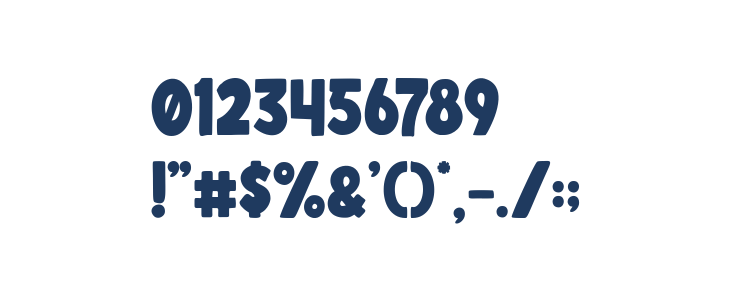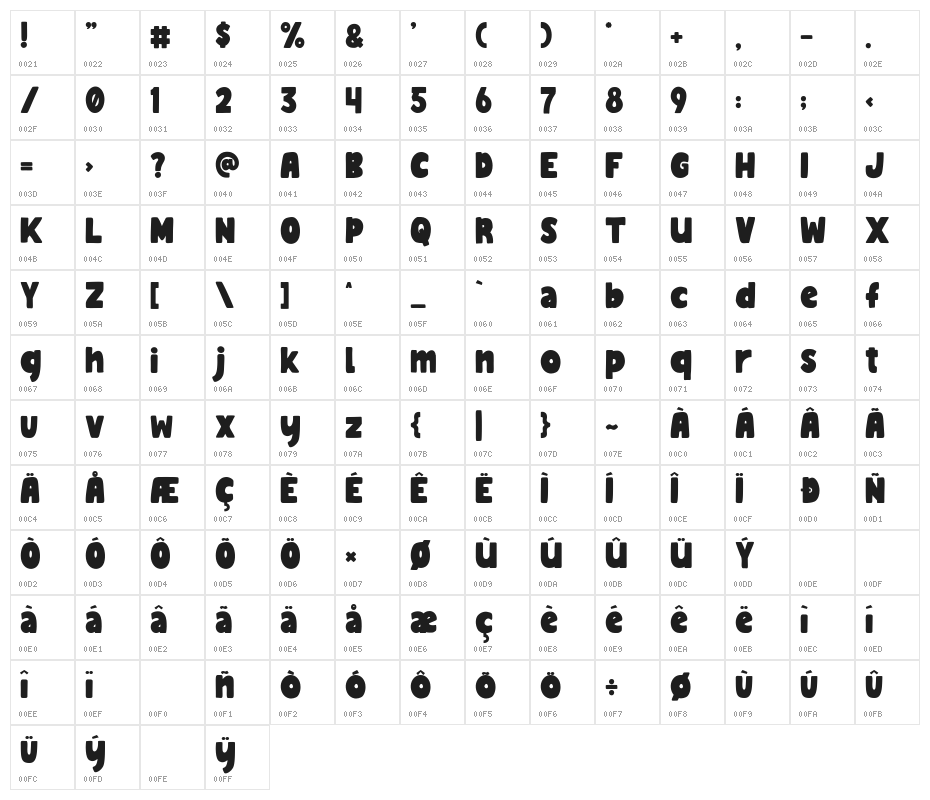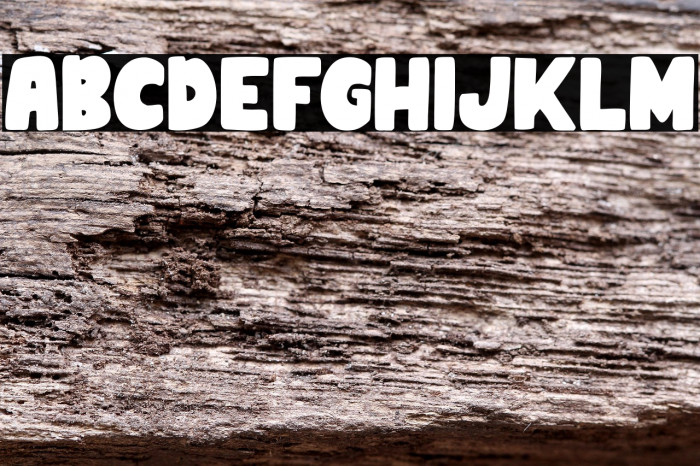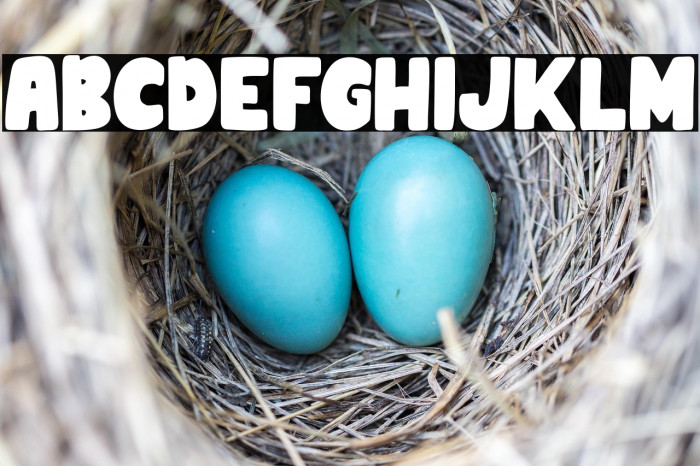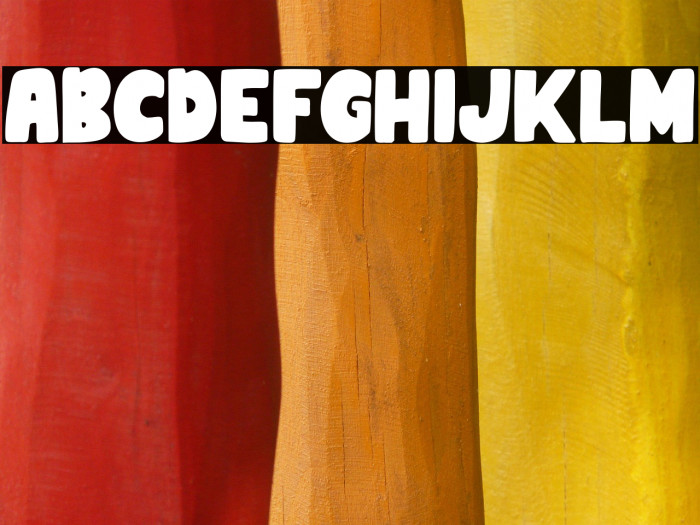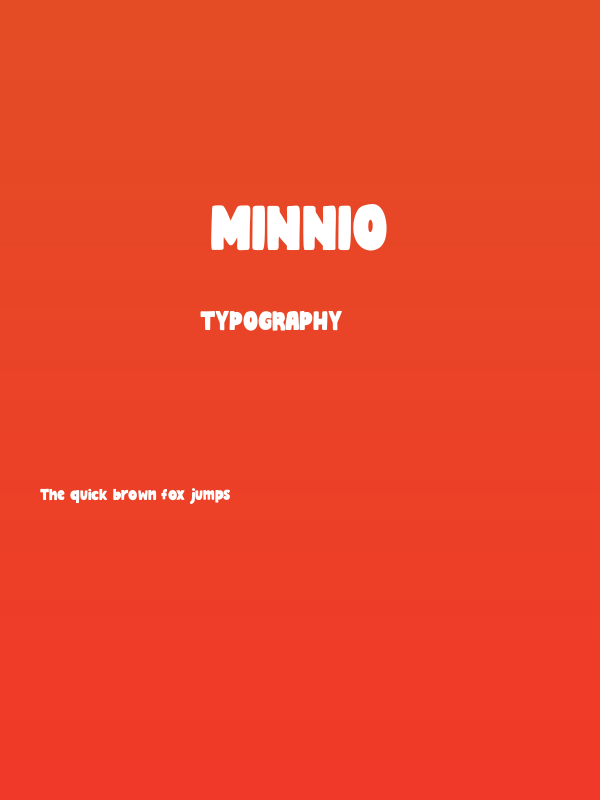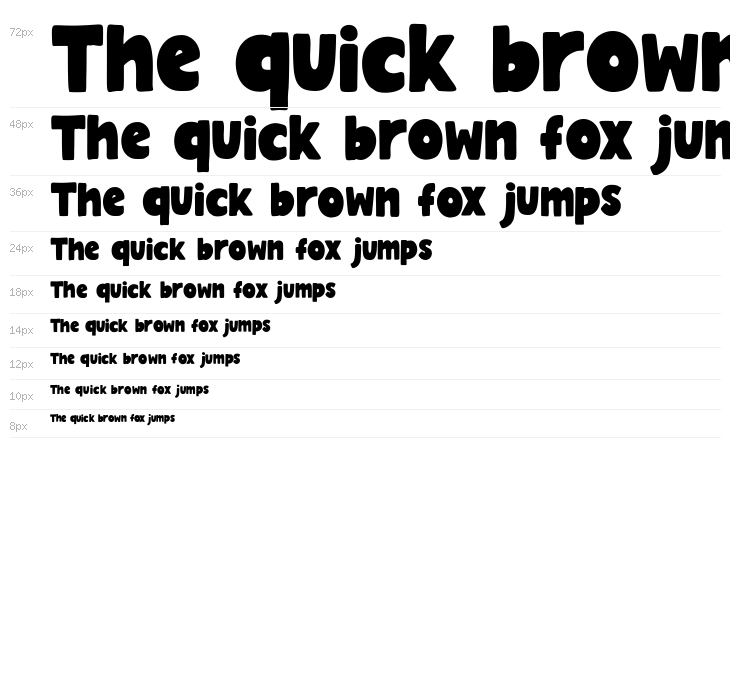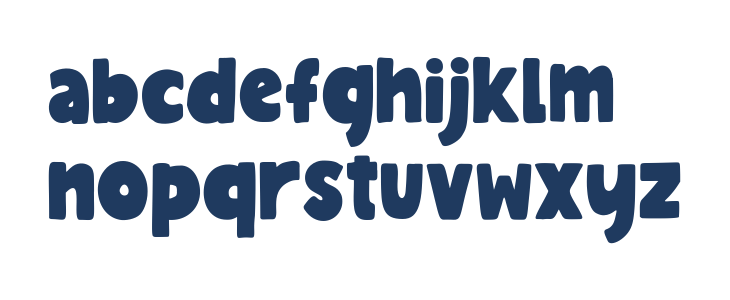
Minnio Font
Minnio Description
This playful and bold font features thick, rounded characters with a whimsical touch. The letters are uniformly wide, giving a sense of balance and consistency across both uppercase and lowercase alphabets. The numbers and special characters maintain the same playful style, making them easily recognizable and cohesive with the overall design. The font's boldness and rounded edges give it a friendly and approachable feel, suitable for projects that aim to convey warmth and creativity. Its unique style makes it stand out, while still being legible and versatile.
| Proposed Projects | Ideal for children's books, playful branding, posters, and creative invitations. |